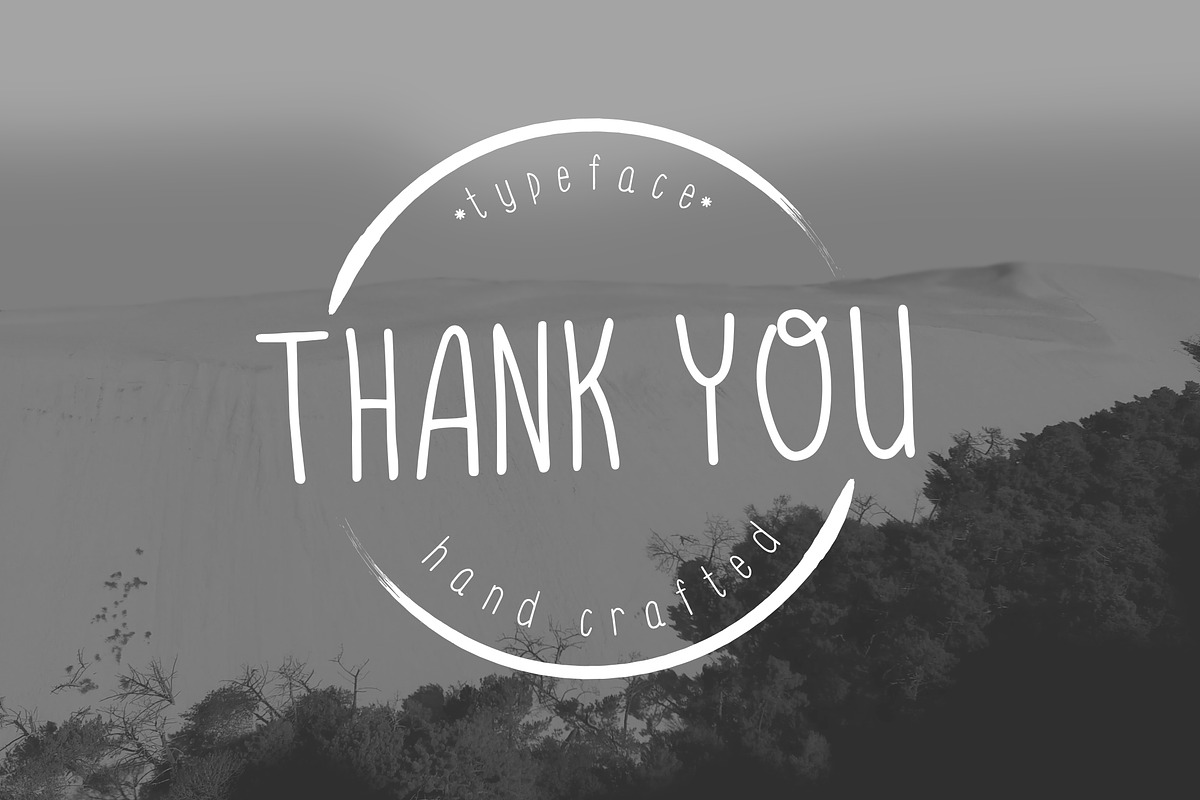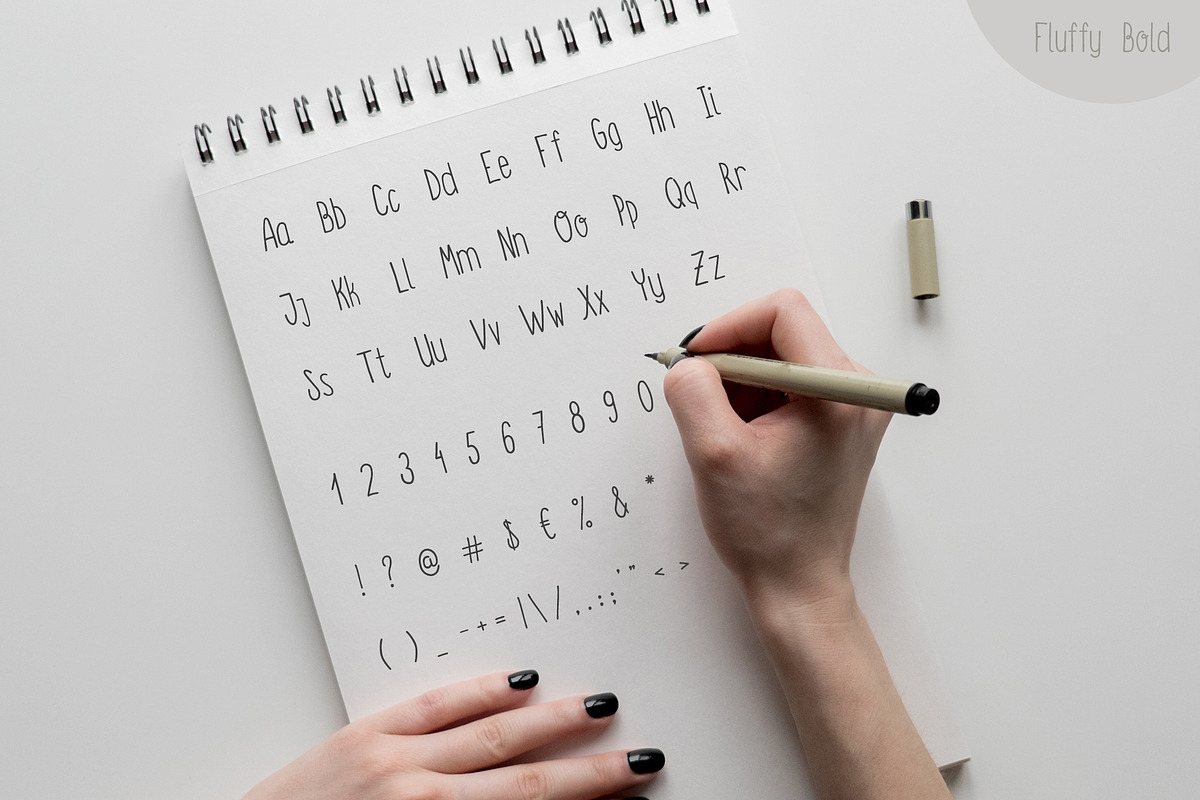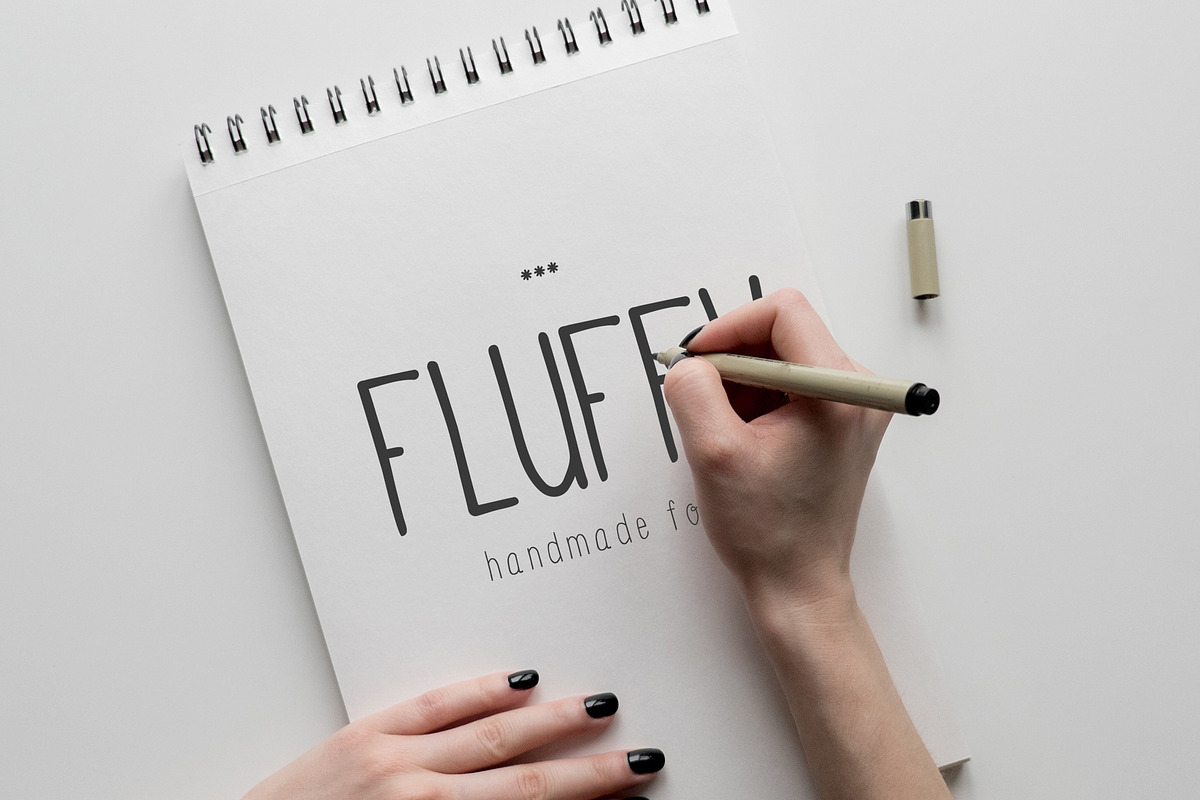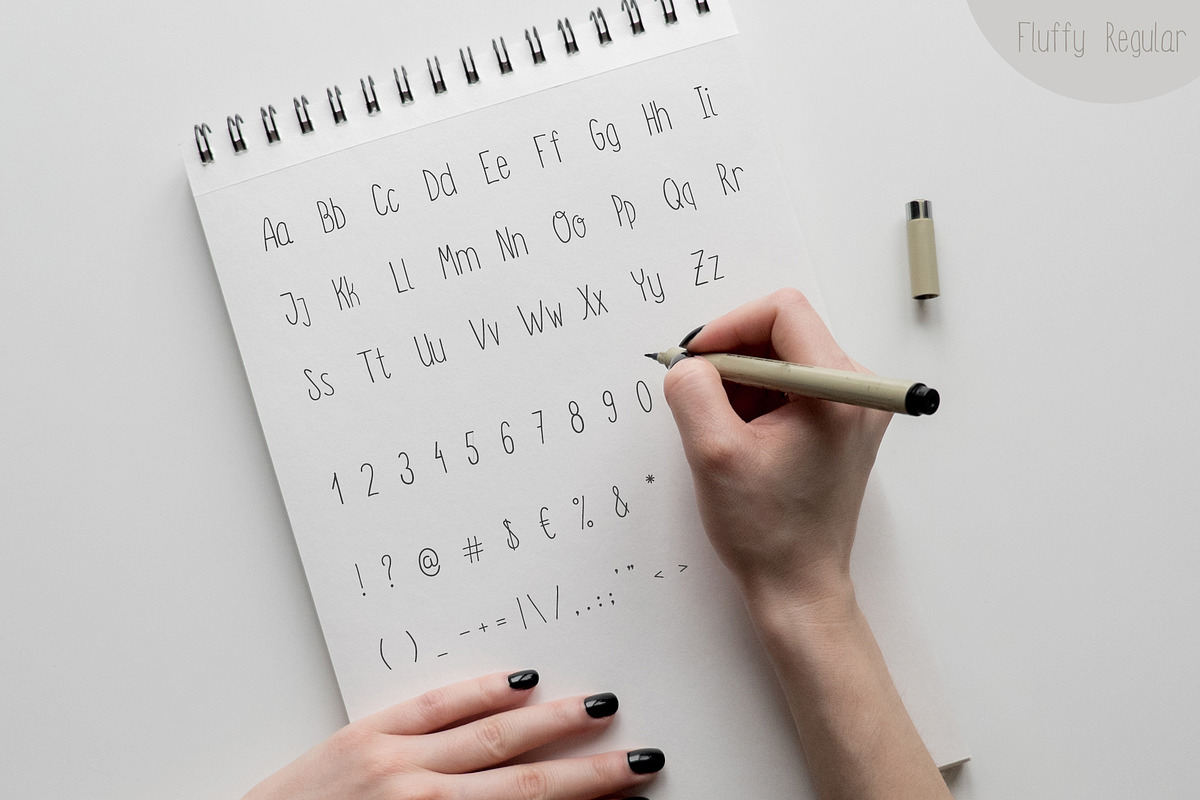
Fluffy Font
Fluffy Font by Alex Blogoodf is a font selected for branding, posters, packaging, typography.
- Fluffy Regular & Fluffy Bold
- Uppercase and lowercase
- Numerals, punctuations and special characters
Why Fluffy Font is worth a look
Fluffy Font by Alex Blogoodf fits naturally into Branding, posters, packaging, typography.